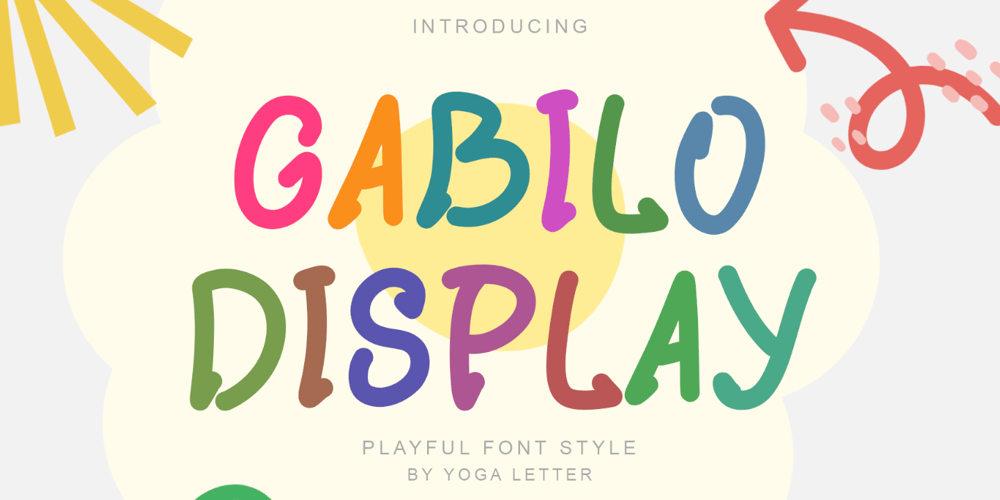
Gabilo Display Font Family was designed by Isroni Yoga Prasetya and published by Yoga Letter. Gabilo Display contains 1 styles and family package options. “Gabilo Display” is a playful display font. This font is very cute and looks colorful. Equipped with uppercase letters, lowercase letters, numerals, punctuations and multilingual support. Very suitable for children’s fonts, summer, holiday, back to school, comics, children’s toys, cartoons, book titles, film titles and others.